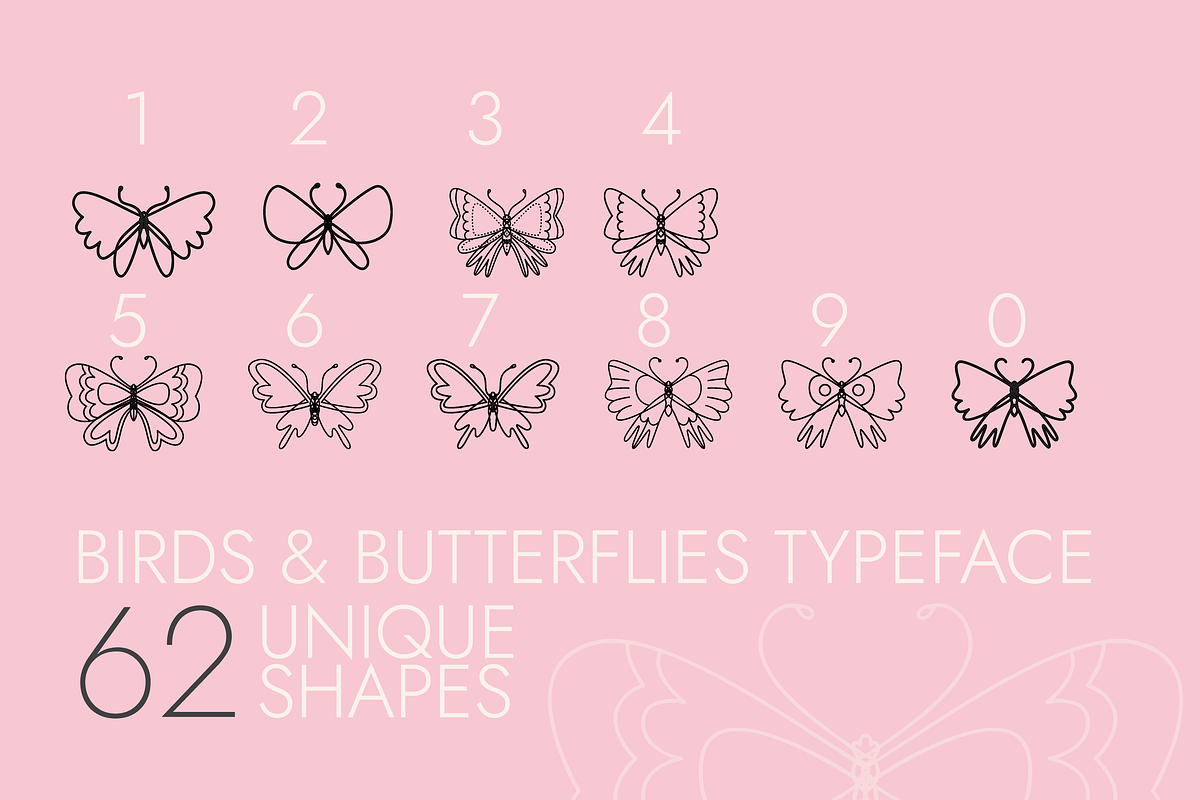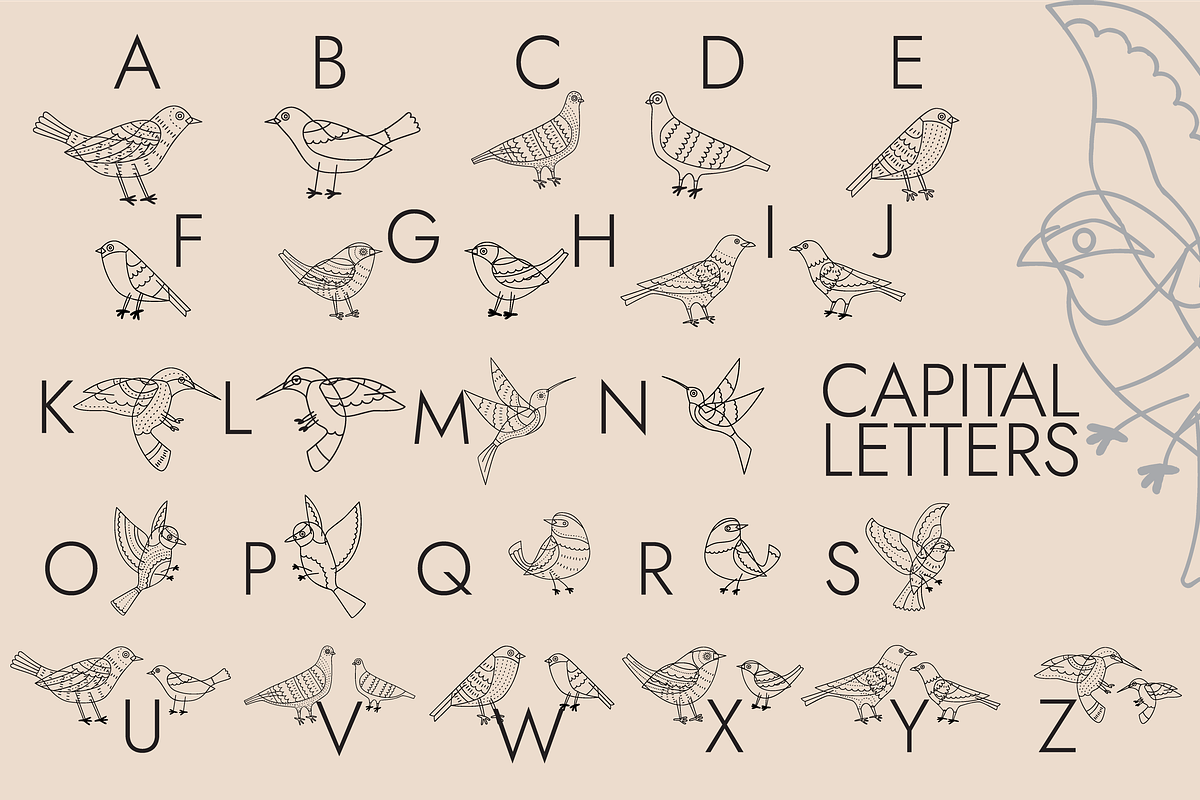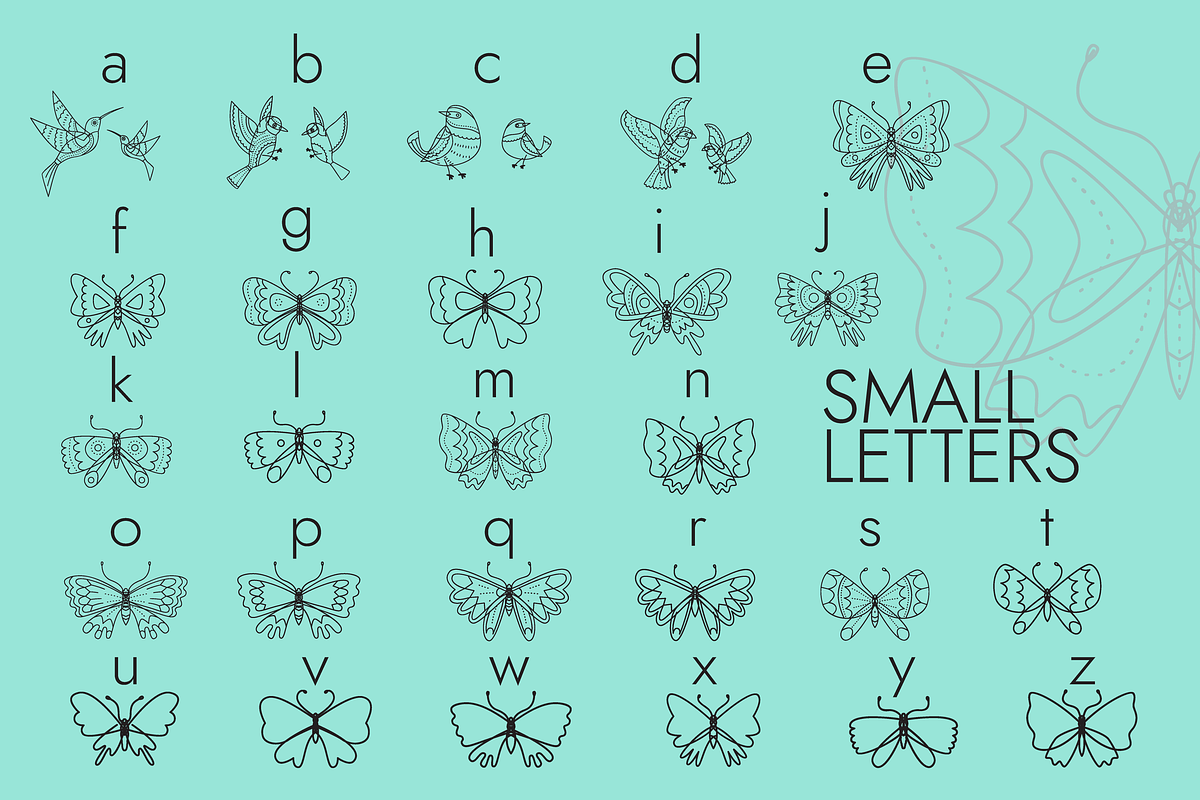
Birds and Butterflies Dingbats Font
Birds and Butterflies is a delicate and useful dingbats font. Add this font to your most creative ideas, and notice how it makes them stand out!